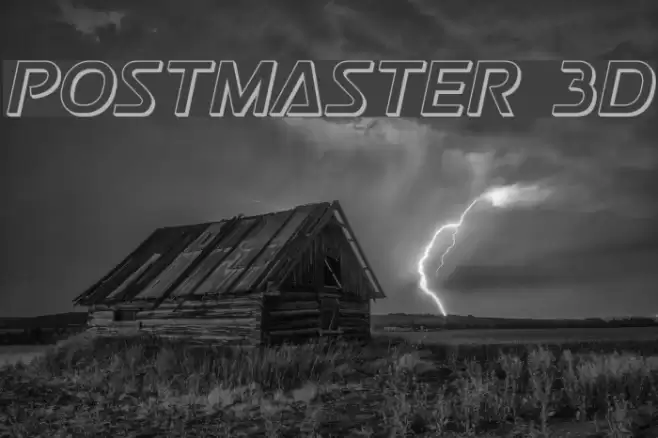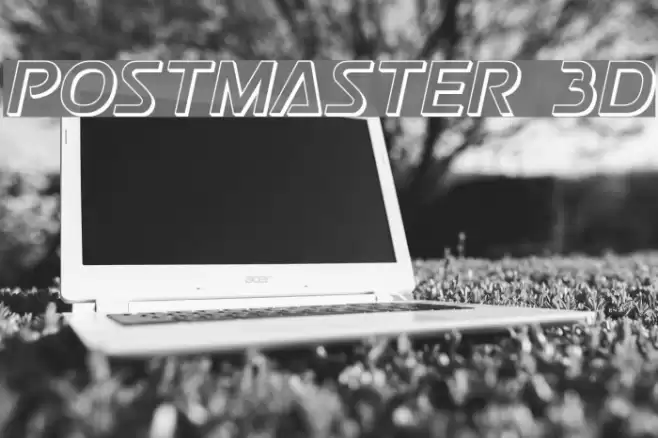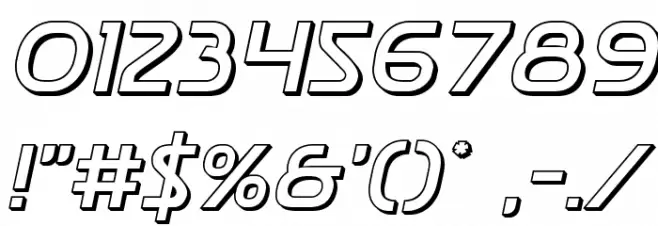
Postmaster 3D Font
Postmaster 3D Description
This font features a bold, three-dimensional appearance with a distinct outline that gives each character a shadowed effect. The uppercase and lowercase letters maintain a consistent style, emphasizing a modern and futuristic aesthetic. The numerals and special characters are designed to match the overall look, ensuring uniformity across all glyphs. The font's structure is clean and geometric, with sharp angles and smooth curves that enhance its readability. Its unique 3D effect makes it stand out, suitable for eye-catching designs.
A bold, 3D outlined font with a modern, futuristic style from Uncategorized fonts.
- Proposed Projects: Ideal for posters, headlines, logos, and any design requiring a striking, modern look.